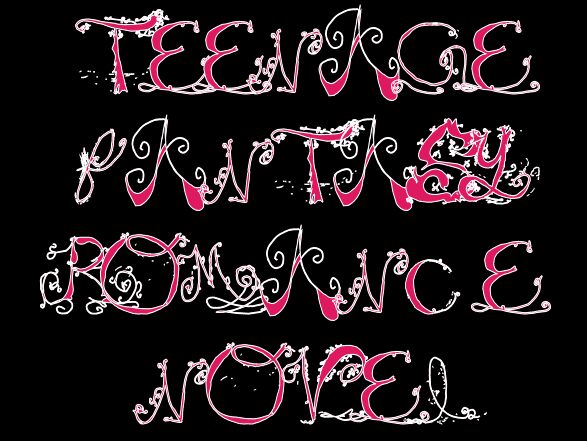
Teenage Fantasy Romance Novel
First font I've ever put out for distribution. Some of the letters didn't come out like I planned because, uh, I kinda went waaay off track.
Please note that, the bigger the text, the fewer the characters, the better it looks! Not meant for typing paragraphs. Intended for art or site headers. ^^